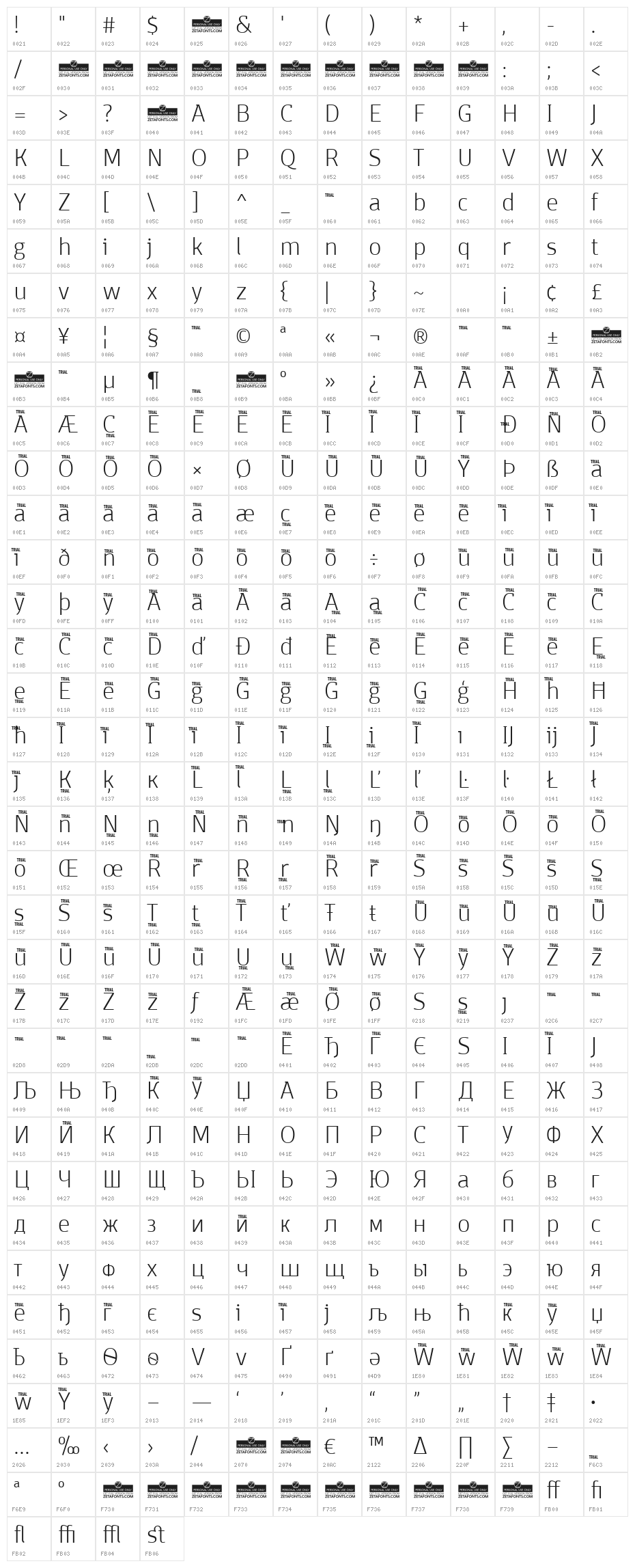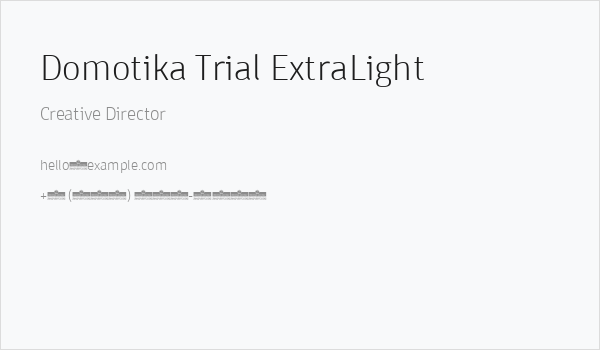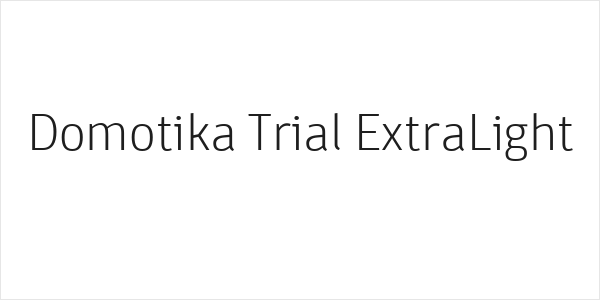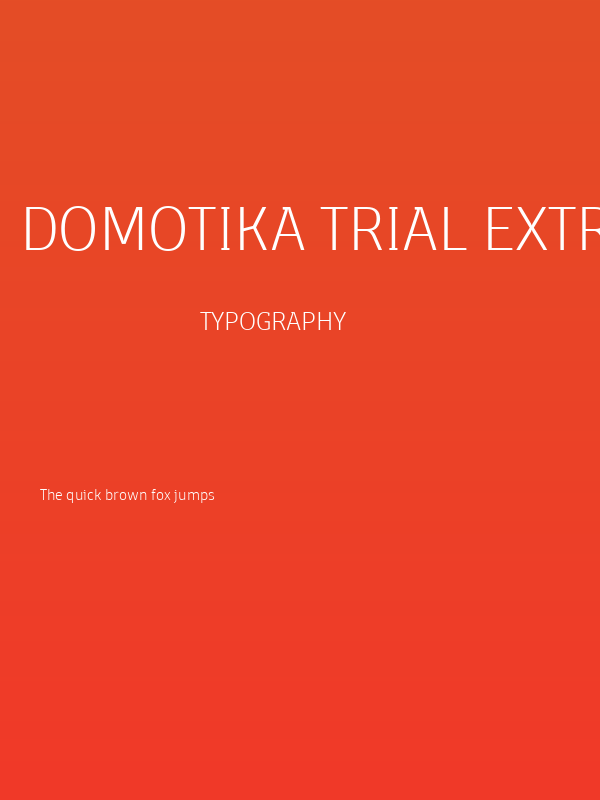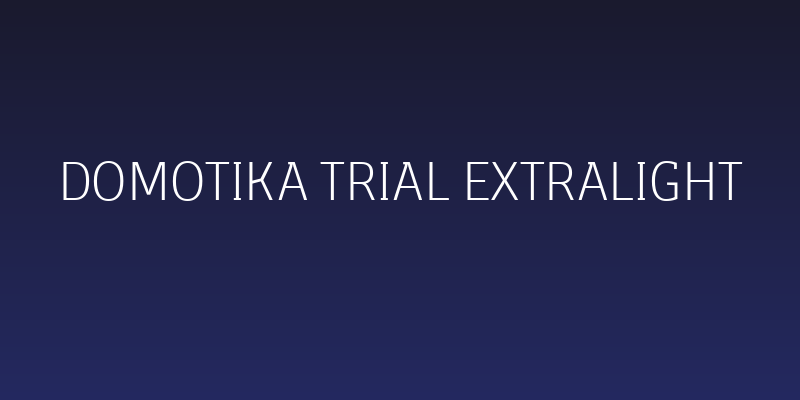
Domotika Trial ExtraLight Font
Domotika Trial ExtraLight Description
This font features a clean and modern design with a focus on simplicity and readability. The characters are crafted with a geometric precision, offering a sleek and contemporary appearance. The uppercase and lowercase letters maintain a consistent height and width, contributing to a harmonious and balanced look. The numerals and special characters are designed to complement the alphabet, ensuring uniformity across all text. The overall style is minimalistic, making it suitable for a wide range of applications where clarity and elegance are desired.